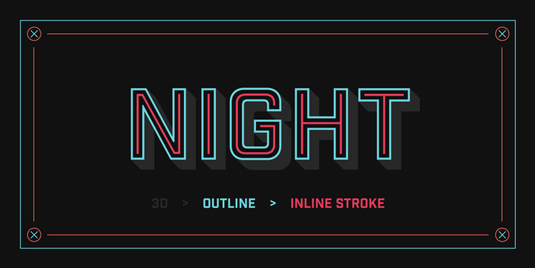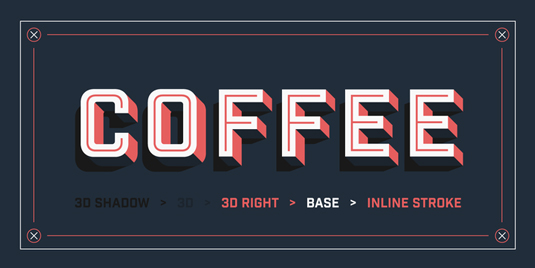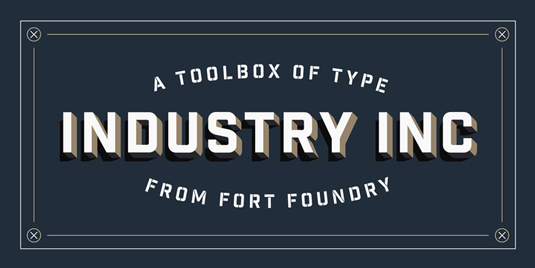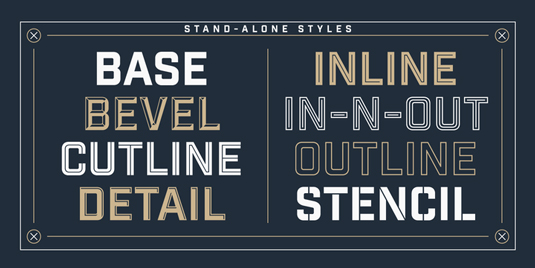
Font of the day: Industry Inc
Every day we showcase the best fonts on the web. Today it's Industry Inc by Mattox Shuler.
Industry Inc by Mattox Shuler
Create eye-catching headlines, posters and signs with bold typeface Industry Inc. Created by designer Mattox Shuler, Industry Inc comprises numerous stand-alone styles along with a layered type system.